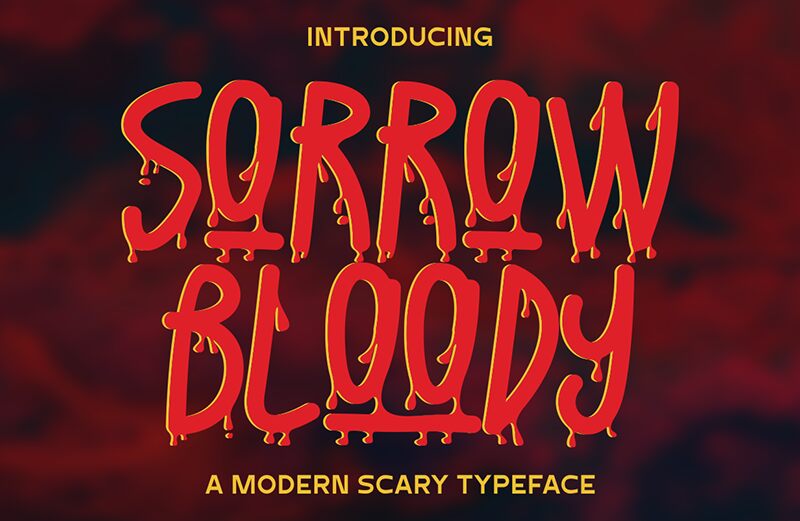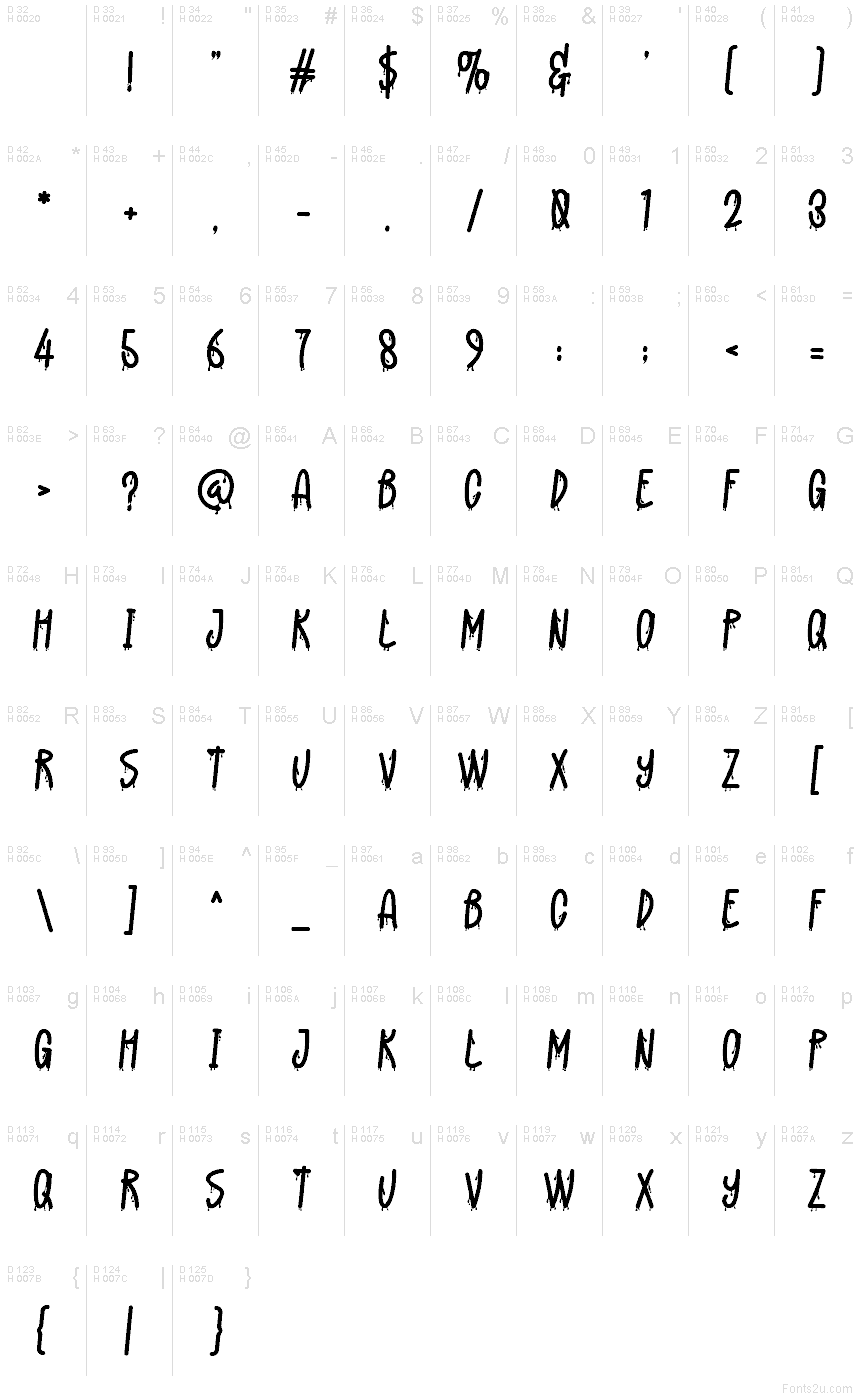
Sorrow Bloody
Sorrow Bloody font by Gilang Ternadho is a free scary display font that splashes across the page with inky drips and jagged, hand-drawn strokes. Its tall, wiry letters feel smeared and urgent, like fresh paint running down a wall, giving headlines instant menace without losing legibility. The rhythm is narrow and tense, so words stack tightly and hit hard.
Using Sorrow Bloody, you can dial up fear for Halloween posters, slasher movie titles, haunted house flyers, escape room signage, horror game splash screens, and eerie book covers. This free font shines on dark backgrounds with screaming high-contrast colors. Pair it with a clean grotesk for body copy, and set Sorrow Bloody large to let the drips do the talking.